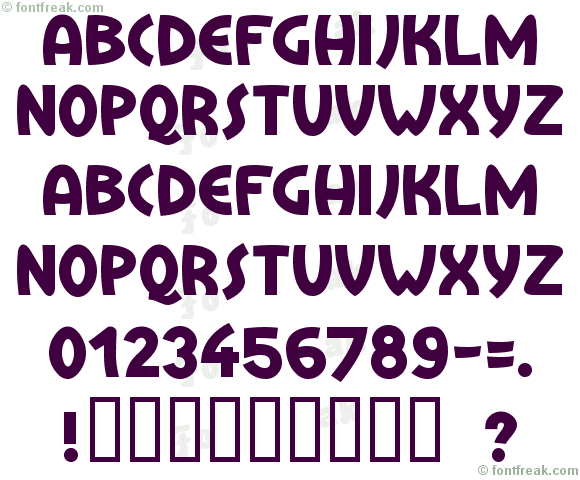
Treasure Island
About Treasure Island
The Treasure Island font by Levi, released in 2001, is a bold display typeface that captures a sense of adventure and whimsy. This decorative font stands out with its unique, slightly exaggerated letterforms that evoke the spirit of treasure maps and pirate tales. The stroke weight is consistent, providing a solid, impactful presence, while the rounded edges of the characters lend a playful quality. The spacing between letters is well-balanced, ensuring readability while maintaining a striking visual appeal.
This font is particularly well-suited for creative projects that aim to draw attention and spark interest. It excels in use cases such as movie posters, especially for adventure or fantasy genres, where it can set the tone for an exciting storyline. It also works beautifully on children's book covers, infusing a sense of fun and imagination. Additionally, the Treasure Island font can elevate restaurant menus, particularly for establishments with a nautical or whimsical theme, making the dining experience feel more immersive. Graphic designers and content creators will find it an essential tool for crafting engaging promotional materials, event flyers, and social media graphics.